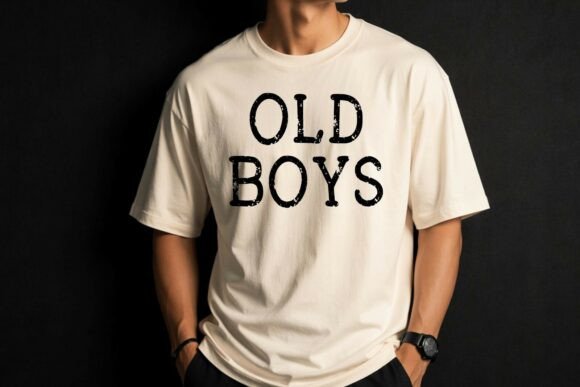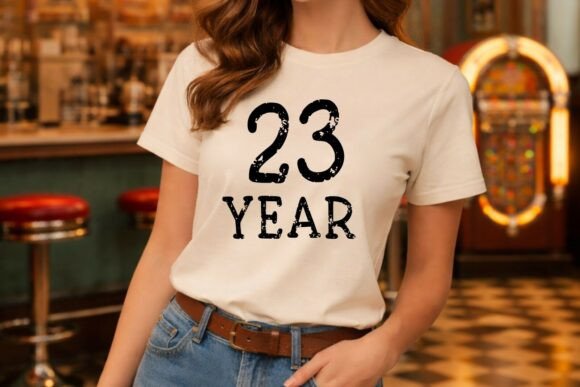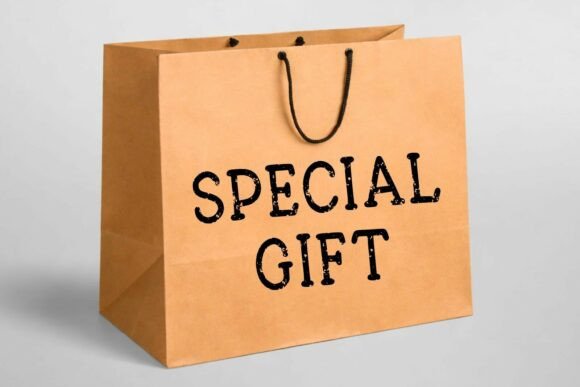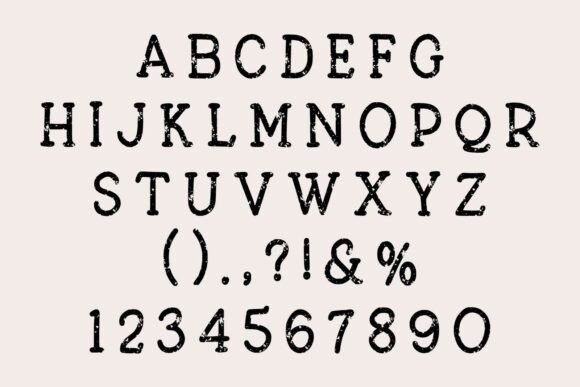
Introduction to Machine 1942 Font
Machine 1942 Typewriter Grunge Font is a vintage-inspired typeface that captures the authentic look of old mechanical typewriters.
Featuring distressed textures and classic serif letterforms, this font delivers a rugged and nostalgic feel reminiscent of historical documents, retro posters, and vintage printing machines Perfect for posters, branding, book covers, packaging, logos, and retro design projects that require an authentic old-school typewriter style.
Key Features of Machine 1942 Font
Why Choose Machine 1942 Font?